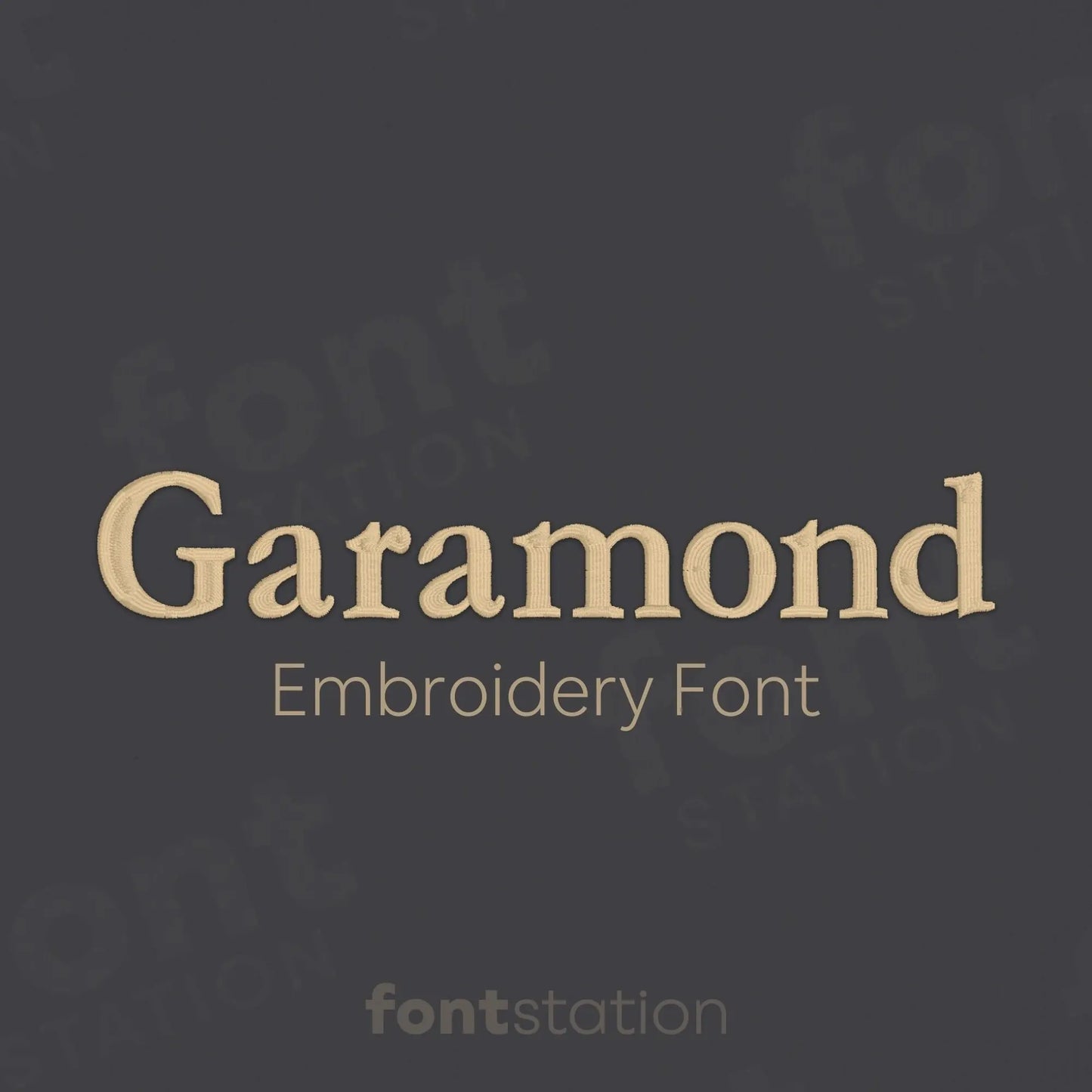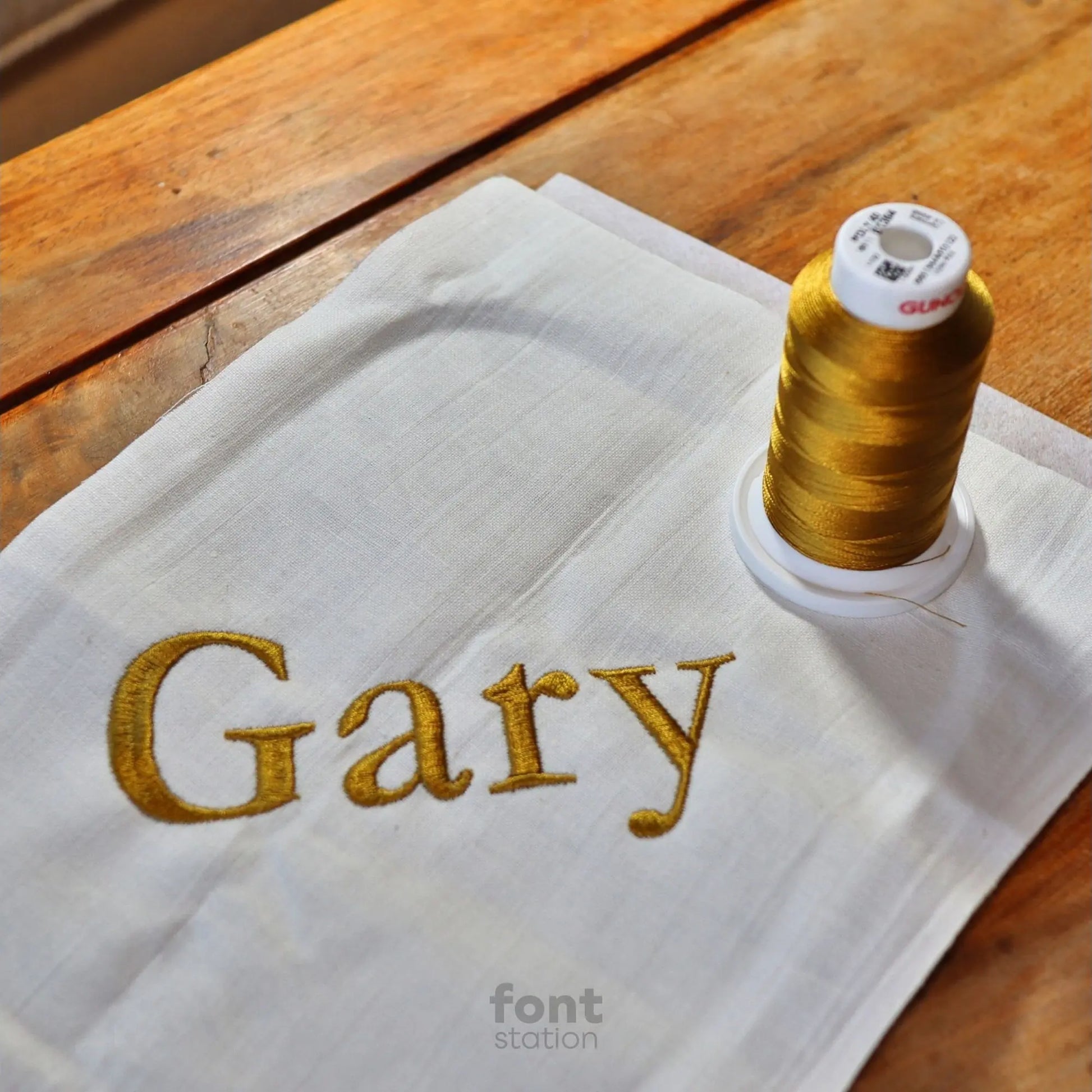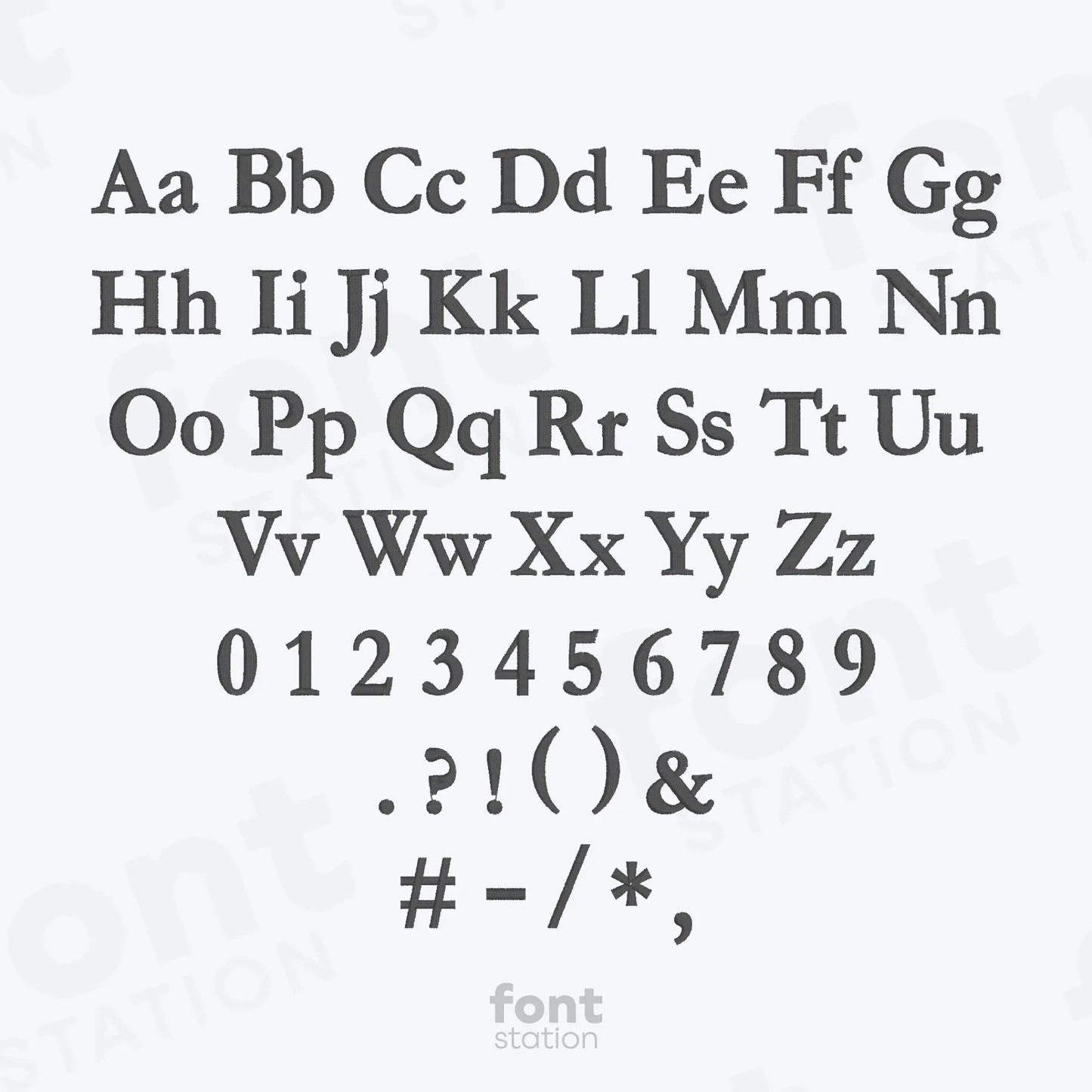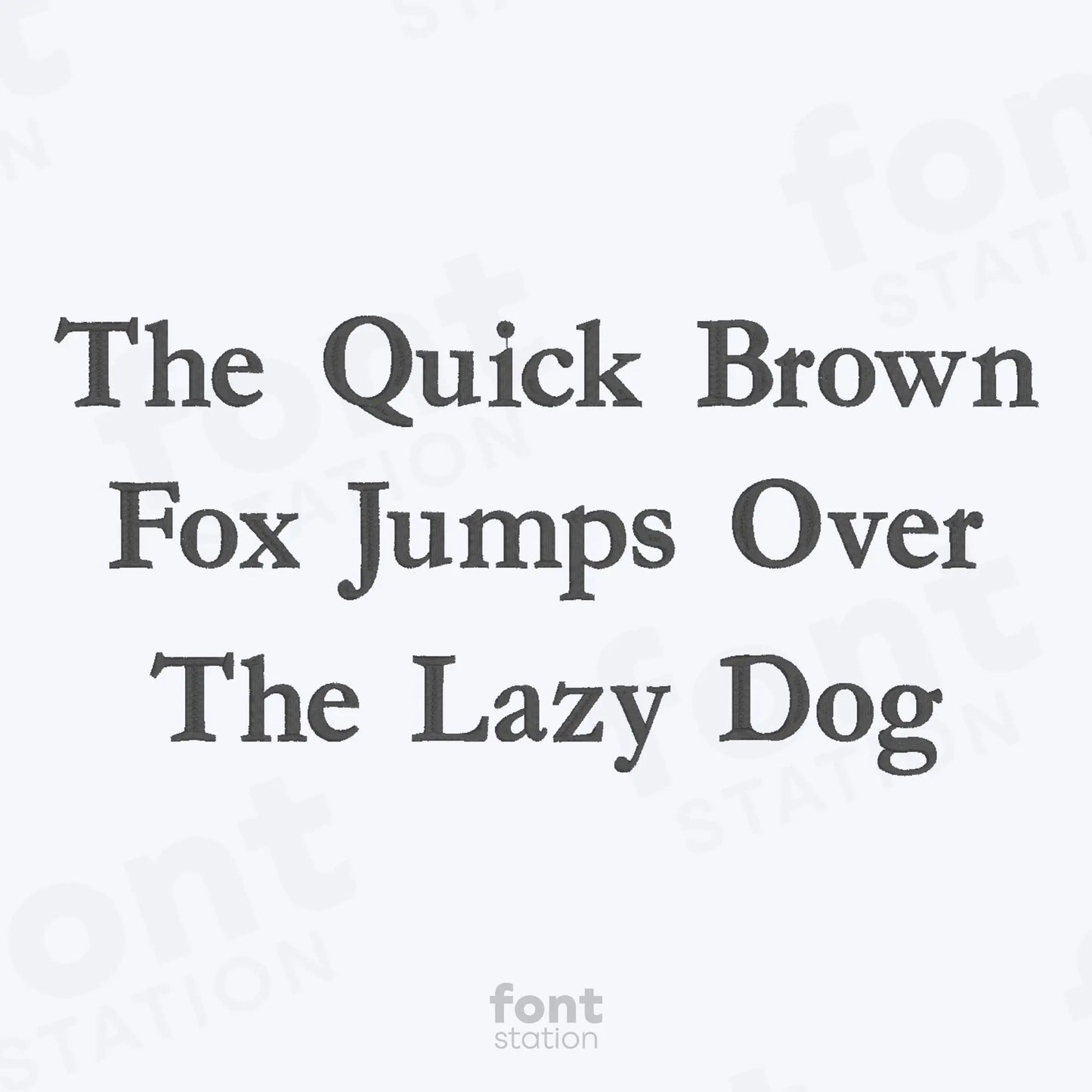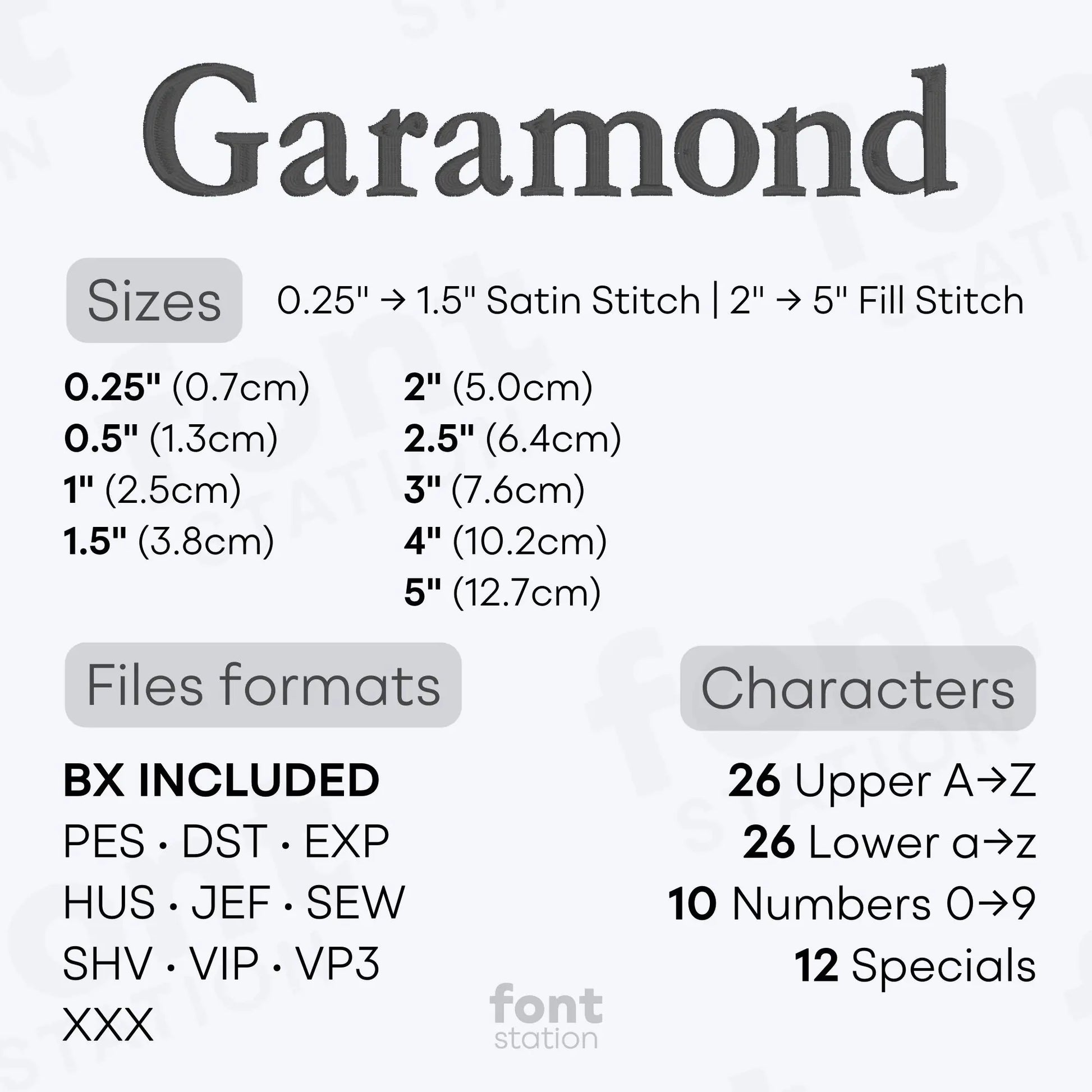
Garamond Embroidery Font
Our Garamond embroidery font is a classic serif alphabet that adds elegance to any project. These clean letters stitch beautifully on any embroidery machine, making them ideal for timeless designs.
About the Garamond Embroidery Font
Our Garamond embroidery font is a classic, serif-style embroidery alphabet perfect for elegant, timeless designs.
This refined Garamond embroidery font features a professionally digitized serif alphabet with smooth, clean letters that stitch beautifully on any embroidery machine. Inspired by the classic elegance of traditional type, this font is ideal for monograms, names, wedding details, and upscale embroidery projects. Available in popular formats including BX, PES, DST, JEF, EXP, VP3, HUS, and XXX, these embroidery letters are machine-ready and deliver excellent stitch quality across a wide range of materials. Add a touch of timeless class to your next project with this versatile and sophisticated embroidery alphabet.
Why choose our Garamond Embroidery Letters?
• Professional Quality: Each character has been expertly digitized to ensure clean, crisp stitching and excellent embroidery results.
• Versatility: Our font is suitable for a wide range of embroidery projects, from apparel and accessories to home decor and gifts.